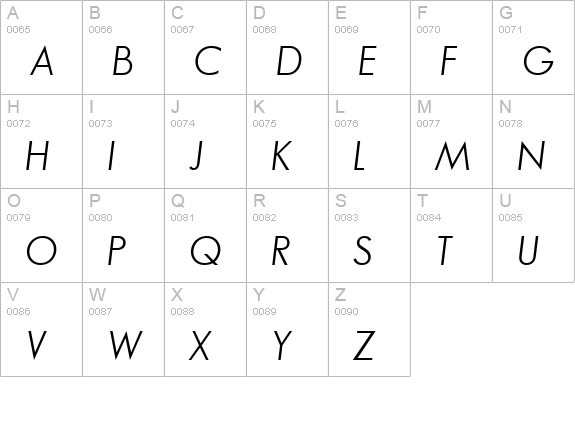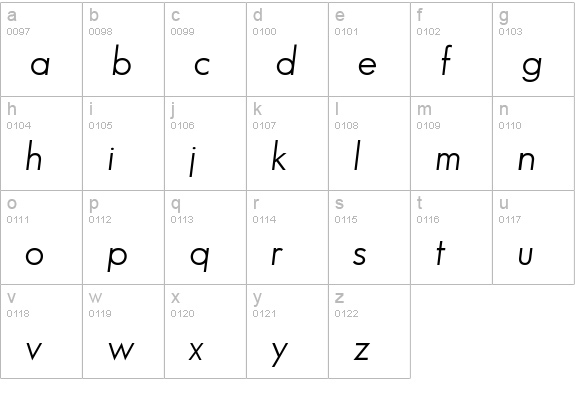
Bougan Book SSi Book Italic is a comfortable, highly readable, italic variant in the Bougan typeface family \xE2\x80\x94 well suited to long-form body text, articles, and editorial content.
Bougan Book SSi Book Italic font is a stunning typeface that exudes elegance and sophistication. Its sleek and stylish design makes it perfect for a wide range of design projects, from branding to editorial work. The italicized version of this font adds a touch of flair and drama to any text. What's even better is that Bougan Book SSi Book Italic font is available for free download at FontsMarket.com. This means that you can easily access this beautiful font and use it in your projects without any cost. Don't miss out on the opportunity to enhance your designs with this exquisite typeface - download Bougan Book SSi Book Italic font now!